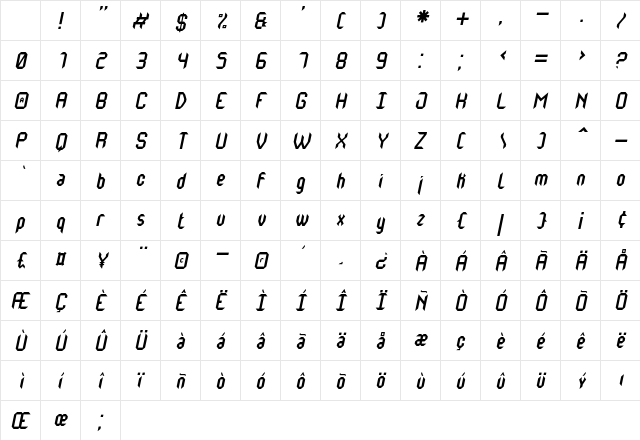
Monster oF South St Italic Free Font
Monster oF South St Italic
Foundry: www.southype.com
Designer: This font is an original work of southype dot com
Design Context for Monster oF South St
Monster oF South St is a composed and adaptable typeface that performs quietly and consistently across a wide range of design contexts. The slanted form adds forward momentum and visual energy.
Pro Tip: Use Monster oF South St for emphasis, pull quotes, and subheadings where its slanted energy can add rhythm to the layout.